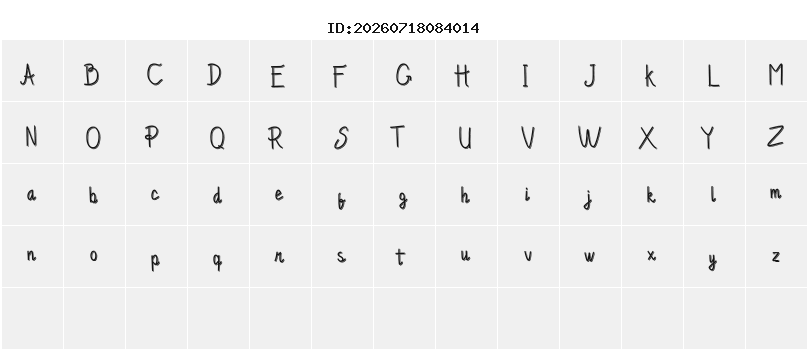
Chandry Vintage Preview
About Chandry Vintage.ttf
Chandry Vintage.ttf is a modern, elegant sans-serif font designed for ultimate readability and visual harmony. Perfect for branding, headlines, web design, and print materials.